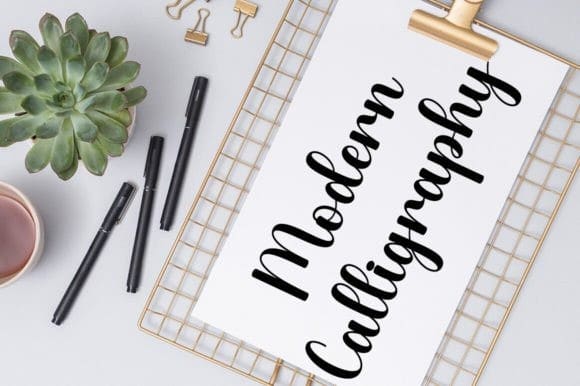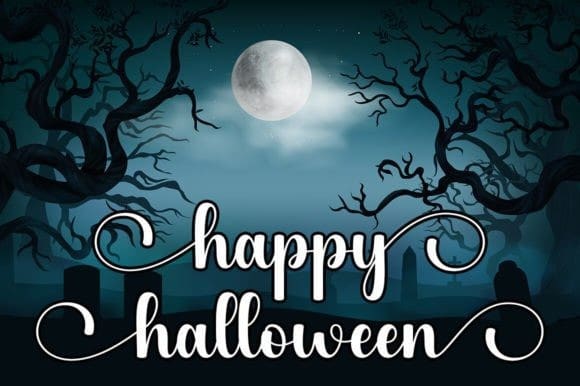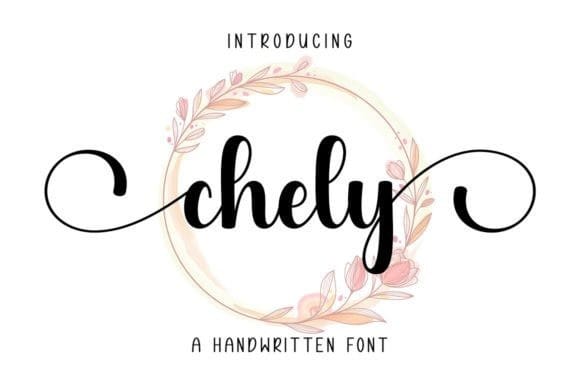
Chely Script Font
Chely Script Font is a lovely and sweet handwritten script font. This gentle font will look gorgeous on a variety of design ideas. It is the best choice for creating eye-catching logos, branding, and quotes.
This font is PUA encoded, which means you can easily access all of the glyphs, swashes, and ligatures!